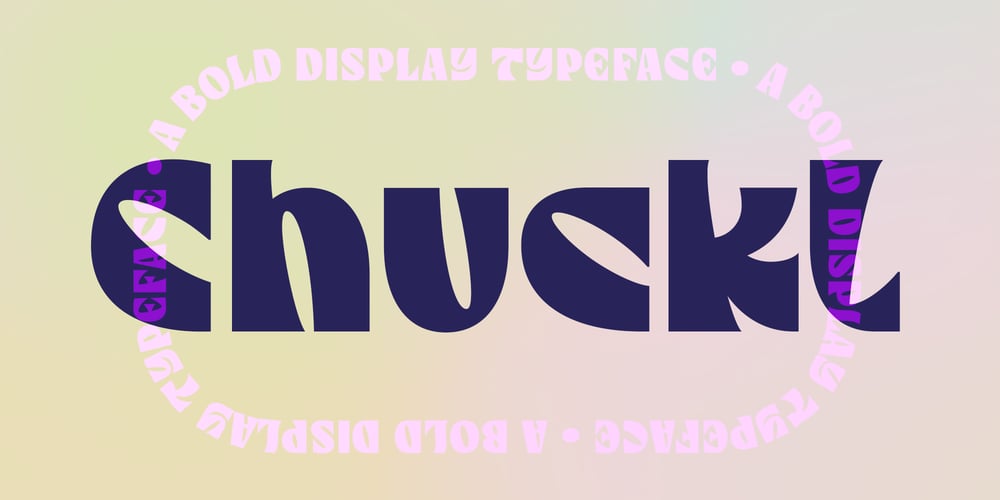
Chuckl
Chuckl font
Chuckl Font Family was designed by Ayça Atalay and published by Ayca Atalay. Chuckl contains 1 styles and family package options. Chuckl | A Bold Display TypefaceChuckl is a bold display typeface that is both fun and powerful, amusing yet impactful. It is visually striking and unique; unforgettable and un-ignorable. Excellent for brand identities, logos, packaging, posters and the like.